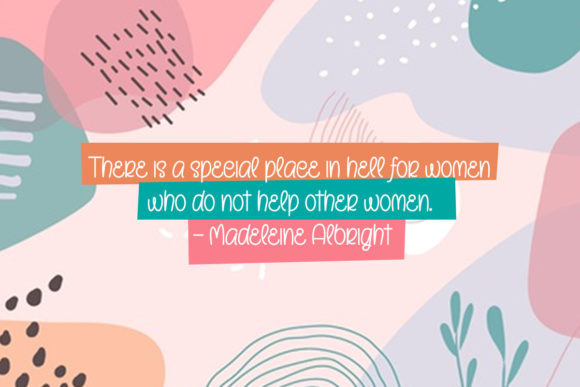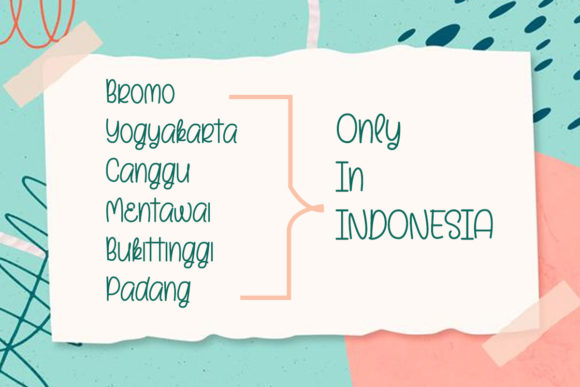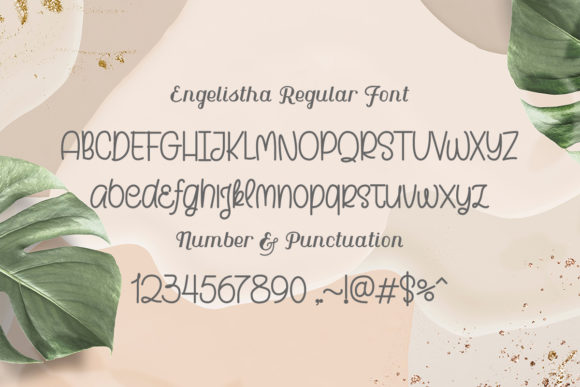
The Engelistha Font: A Playful and Romantic Addition to Your Design Projects
I’ll never forget the time I was working on a project for a client who wanted a whimsical and romantic feel. I had a clear vision of what I wanted to create, but I was struggling to find the perfect font to bring it all together. That’s when I stumbled upon the Engelistha font, and it completely transformed my design. In this article, I’ll share my experience with this beautiful font, its features, and how to make the most of it in your design projects.
A Personal Review of Engelistha
As a designer, I’m always on the lookout for fonts that can add a touch of personality to my projects. Engelistha is a simple and playful handwritten font that has become one of my go-to choices. Here’s what I love about it:
- ✨ Warm and romantic feel that’s perfect for projects that require a personal touch
- 🎉 Endless variations to keep your designs fresh and exciting
- 💕 Beautifully crafted to evoke a sense of joy and playfulness
While Engelistha is an amazing font, it’s not without its quirks. Here are a few things to keep in mind:
- 🤔 Some characters may not work well in all contexts, so it’s essential to test the font thoroughly
- ⚠️ Limited availability of certain glyphs, which may limit its use in specific projects
The Story Behind Engelistha
Engelistha was designed by a talented typographer who wanted to create a font that would evoke a sense of joy and playfulness. The designer drew inspiration from traditional handwriting styles and infused them with a modern twist. The result is a font that’s both elegant and fun, perfect for designs that require a personal touch.
| Font Name | Engelistha Font |
| Author | Lettercorner Studio |
| What is the Engelistha font best used for? | The Engelistha font is best used for designs that require a warm, romantic, and playful feel, such as wedding invitations, greeting cards, and creative projects. |
| What are some common issues with using Engelistha? | Some common issues with using Engelistha include limited availability of certain glyphs, and potential compatibility issues with certain design software or platforms. |